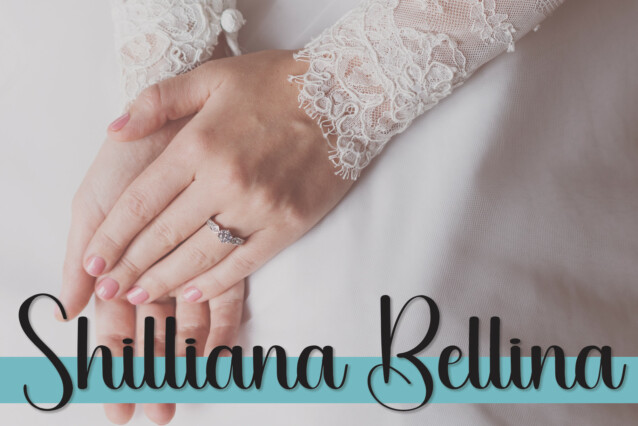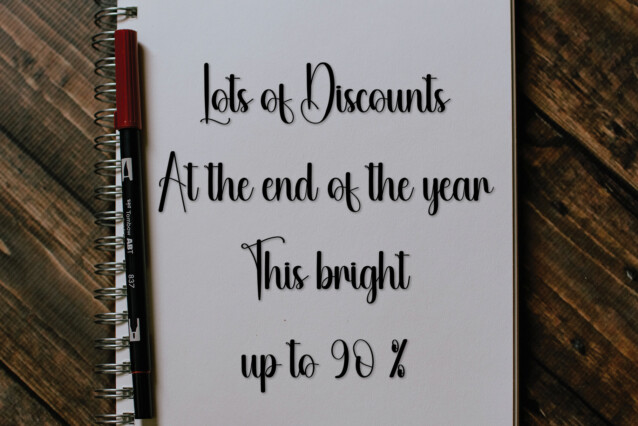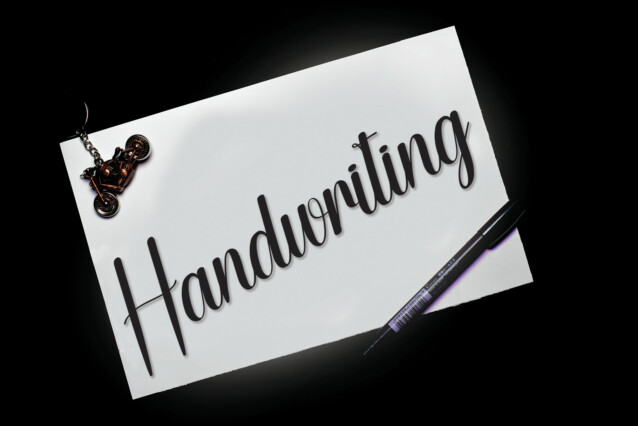
Butterfly Script Font
Butterfly Script Font is a romantic and sweet calligraphy typeface with characters that dance along the baseline. It will add a luxury spark to any design project that you wish to create!